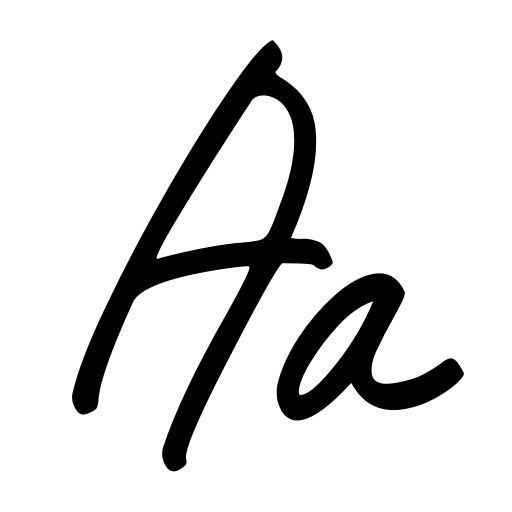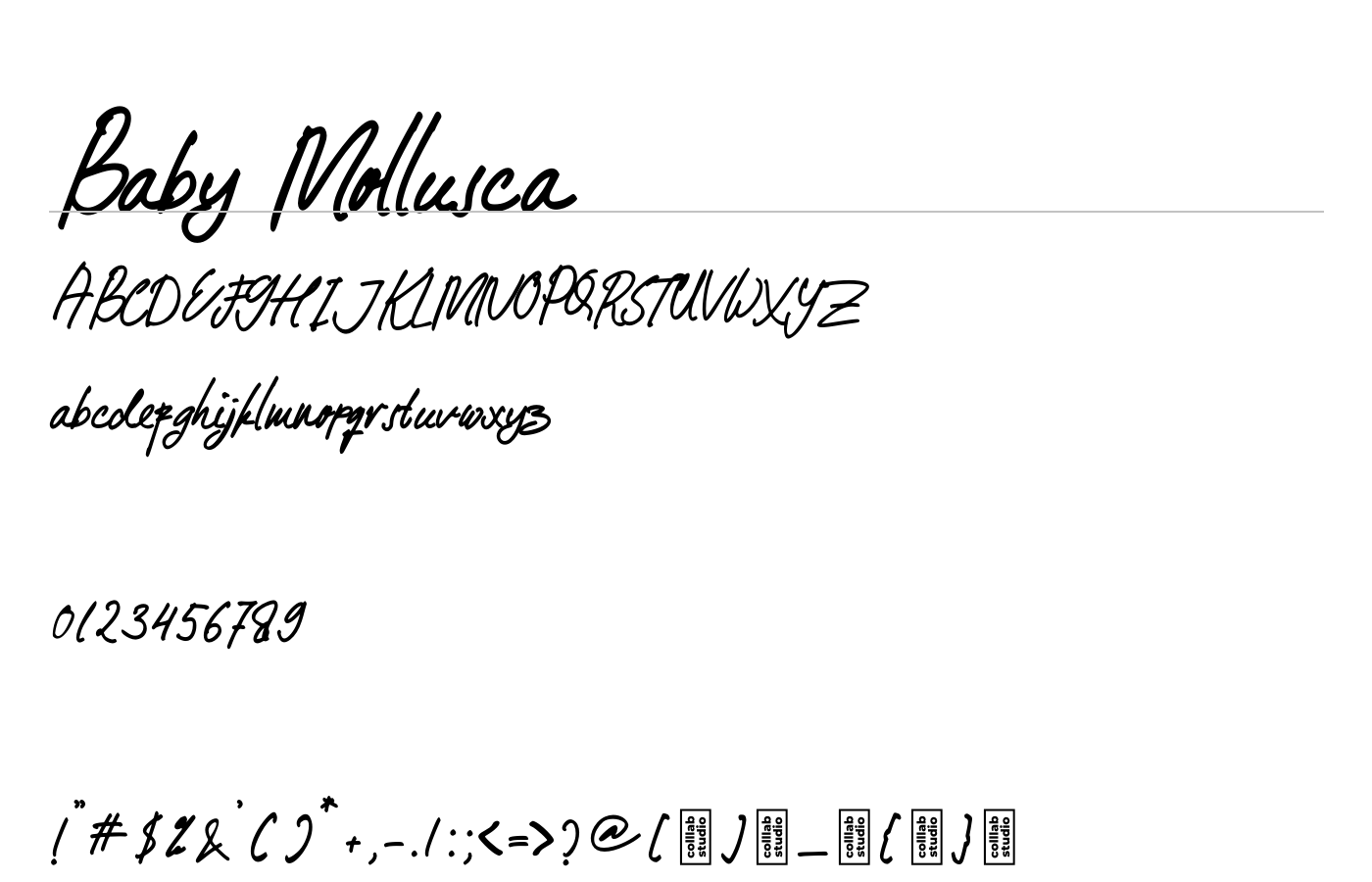
Baby Mollusca is a playful, handwritten script font characterized by its slim, upright strokes and informal style. It offers a light and airy feel with a natural, calligraphic touch, making it ideal for casual, creative projects that want to convey warmth and personality. Perfect for logos, invitations, and artistic branding, this font adds a friendly, personal vibe where a relaxed yet elegant impression is desired.
Baby Mollusca Font
About Baby Mollusca Font
| Font family | Baby Mollusca Font |
| Designer | Colllab Studio |